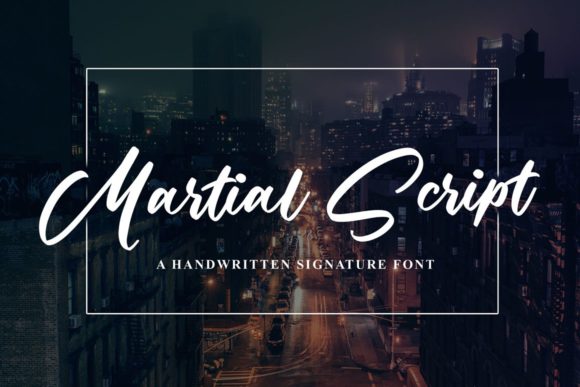
Prepare to be captivated by Martial Script, an extraordinary handwritten font crafted with precision and artistry. Its bold and modern strokes dance across the page, adding a touch of elegance and sophistication to your creations. Unleash your imagination and explore the limitless possibilities of this versatile font.
Immerse yourself in the beauty of handwritten calligraphy, where each letter flows effortlessly into the next, creating a captivating visual symphony. Martial Script's natural and unique style lends itself seamlessly to a myriad of design projects, from eye-catching brochures to heartfelt wedding invitations.
With Martial Script, you'll discover a font that commands attention without overpowering your designs. Its delicate balance of boldness and finesse ensures your message shines through, leaving a lasting impression on your audience.
But Martial Script is more than just a pretty face. It's a powerful tool that empowers you to evoke emotions and convey messages with unparalleled clarity. Its enchanting swashes and glyphs add a touch of whimsy and playfulness, transforming your words into works of art.
Don't settle for ordinary fonts that blend into the background. Choose Martial Script and elevate your designs to new heights. Embrace the beauty of handwritten artistry and let your words dance off the page with grace and elegance.